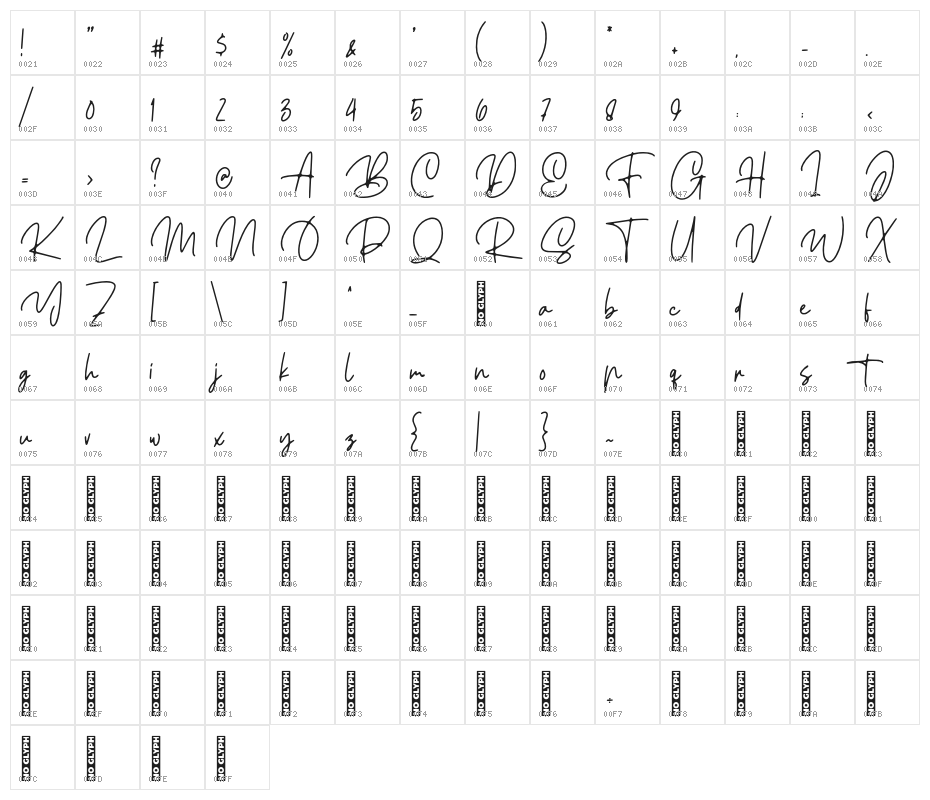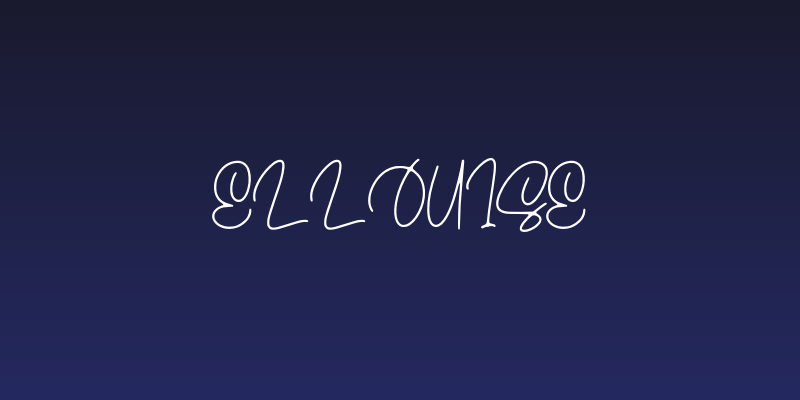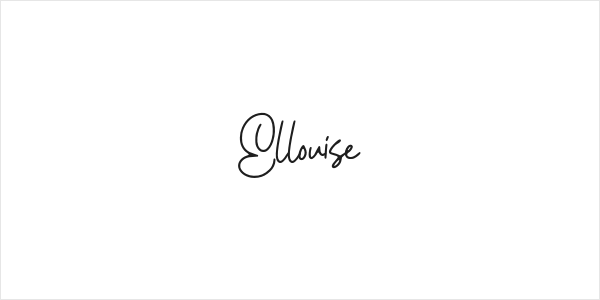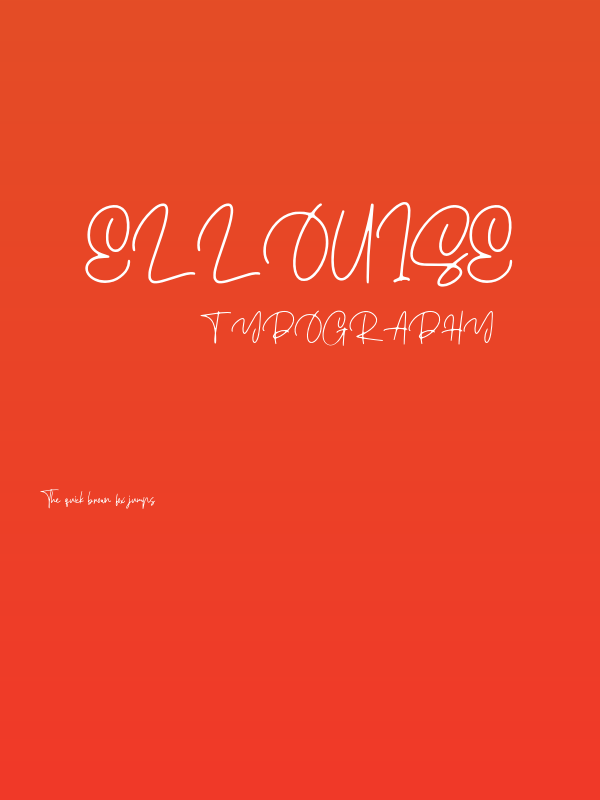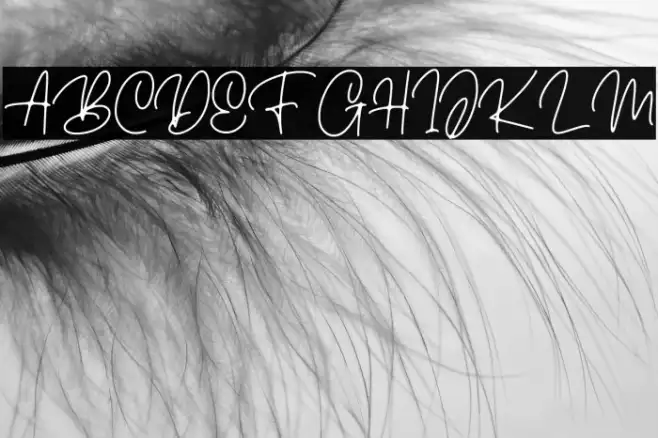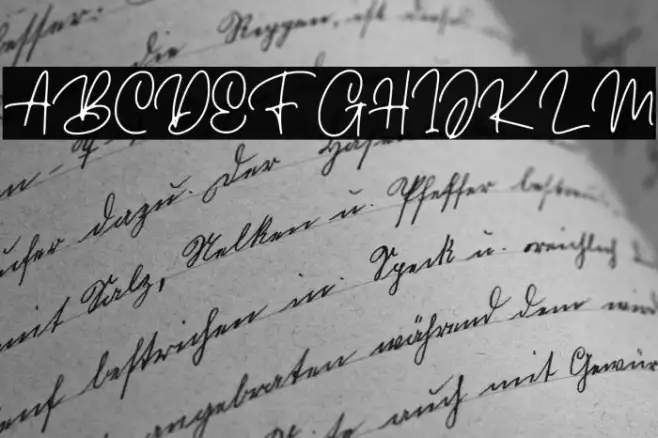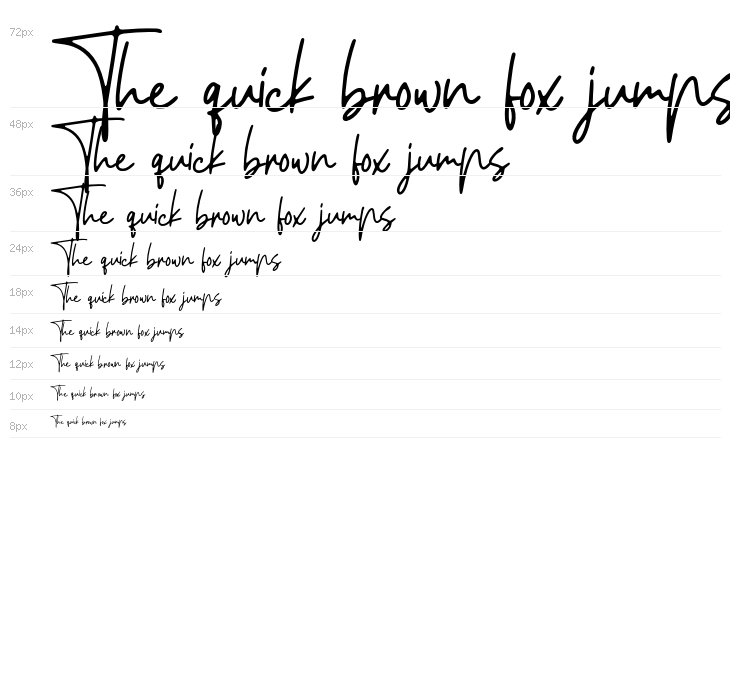
Ellouise Font
Ellouise Description
This font exhibits a lively and expressive handwritten style, characterized by its fluid and dynamic strokes. The uppercase letters are elegantly crafted with a slight slant, giving them a sense of movement and grace. The lowercase letters maintain a consistent flow, with some characters featuring unique loops and flourishes that add personality. The numerals are clear and legible, maintaining the handwritten aesthetic. Special characters are thoughtfully designed to complement the overall style, making this font versatile for various creative applications.